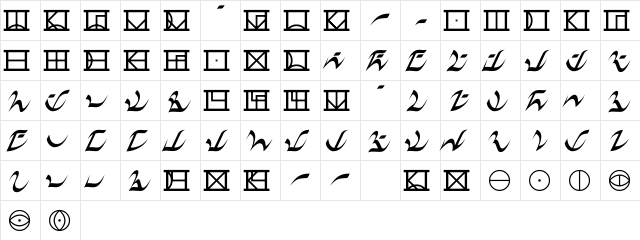
D'ni Script Regular
| Foundry | Colin Arenz (Tekis), Sebastian Ochs (Jehon) |
| Designer | All things D'ni ere created by Cyan Inc. |
Design Context for D'ni Script Typeface
D'ni Script brings a calligraphic fluidity to the page — its connecting strokes and expressive curves give it an unmistakably human quality.